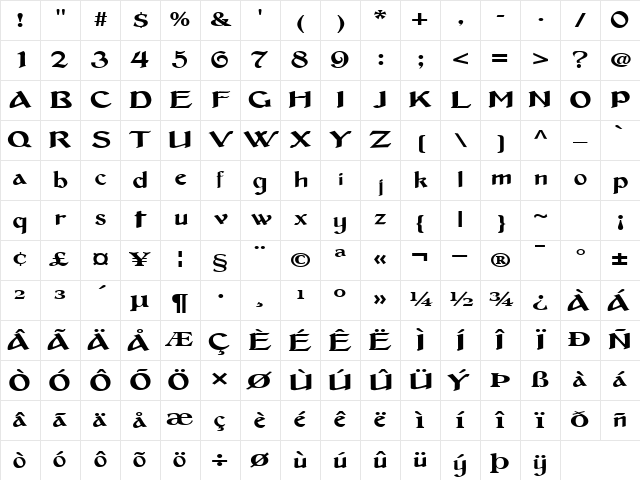
JulianWay Regular
Design Context for JulianWay
JulianWay is a composed and adaptable typeface that performs quietly and consistently across a wide range of design contexts.
Pro Tip: Use JulianWay in both headline and body roles to test its range before committing to a single application.